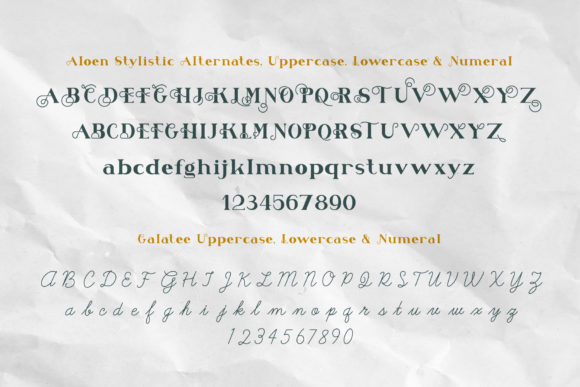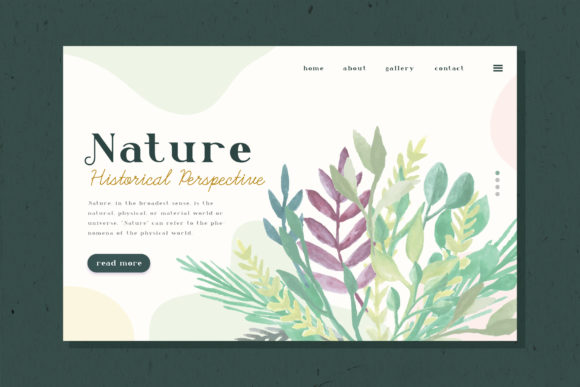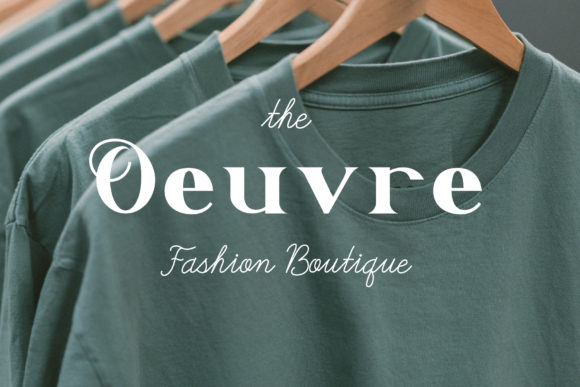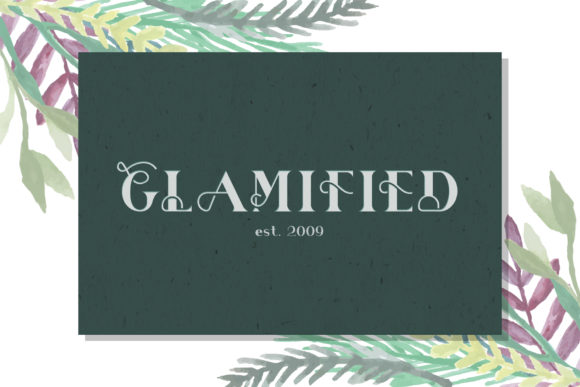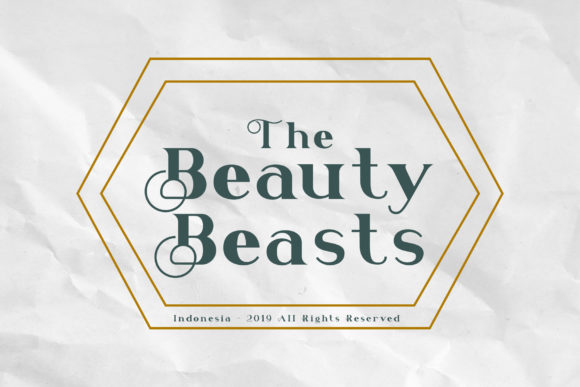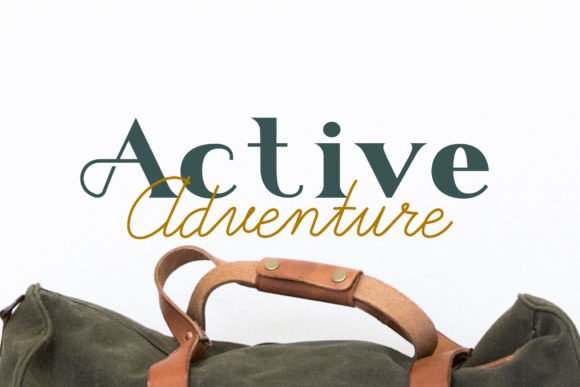
Aloen Duo Font: Elevate Your Designs with a Truly Iconic Display Font
In the world of typography, a great font can make all the difference in bringing a design idea to life. For designers and crafters looking to add a touch of uniqueness and style to their projects, the Aloen Duo Font is an excellent choice. This stunning display font duo combines two distinct yet complementary fonts that are sure to elevate any design concept.
What is Aloen Duo Font?
Aloen Duo Font is a carefully crafted display font duo that features two distinct fonts, each with its own unique character and style. The combination of these two fonts offers designers a versatile toolset to add visual interest and depth to their designs. Whether you’re working on a branding project, a website design, or a crafting project, the Aloen Duo Font is designed to help you create something truly special.
Unique Style and Features
The Aloen Duo Font stands out for its truly iconic and unique style. Each font in the duo is designed to complement the other, offering a range of possibilities for designers. The fonts feature elegant lines, distinctive shapes, and a modern aesthetic that is sure to capture attention. With the Aloen Duo Font, you can add a touch of sophistication and elegance to your designs, making them stand out in a crowded digital landscape.
The Aloen Duo Font offers numerous benefits for designers and crafters, including:
- Versatility: The font duo can be used across a range of design projects, from digital designs to print materials.
- Unique Style: The distinctive style of the Aloen Duo Font ensures that your designs will stand out and be memorable.
- Ease of Use: The fonts are easy to read and work with, making them suitable for both beginners and experienced designers.
- Customization: With two fonts to choose from, you can experiment with different combinations to find the perfect look for your project.
How to Use Aloen Duo Font in Your Designs
Using the Aloen Duo Font in your designs is straightforward. Here are some tips to get you started:
- Pair the Fonts: Experiment with pairing the two fonts to create visual interest. Use one font for headings and the other for body text or accents.
- Play with Sizes: Varying the size of the fonts can add depth and hierarchy to your design.
- Experiment with Colors: The Aloen Duo Font works well with a range of colors. Try contrasting colors to make your text stand out.
- Add Texture: Consider adding texture or patterns to your text for added visual interest.
The Aloen Duo Font is a truly iconic display font duo that offers designers and crafters a unique and versatile tool for elevating their design ideas. With its distinctive style, ease of use, and versatility, this font duo is sure to become a staple in any designer’s toolkit. Whether you’re looking to create something elegant and sophisticated or bold and attention-grabbing, the Aloen Duo Font is the perfect choice.